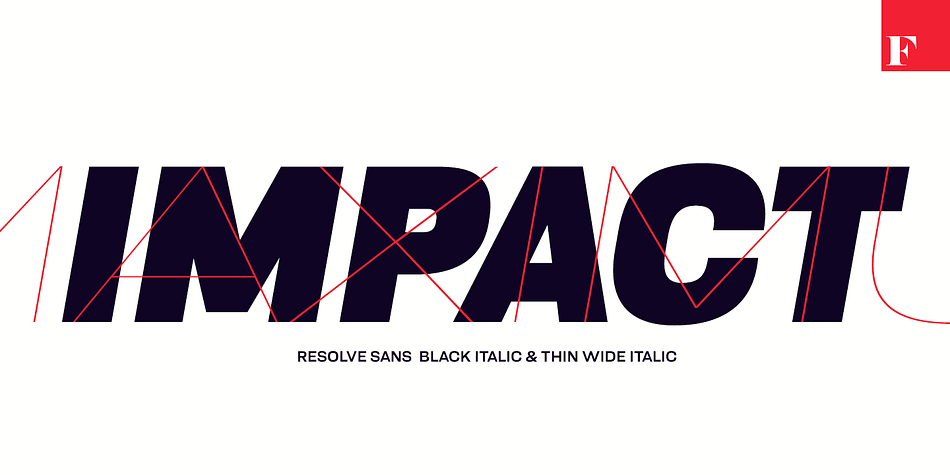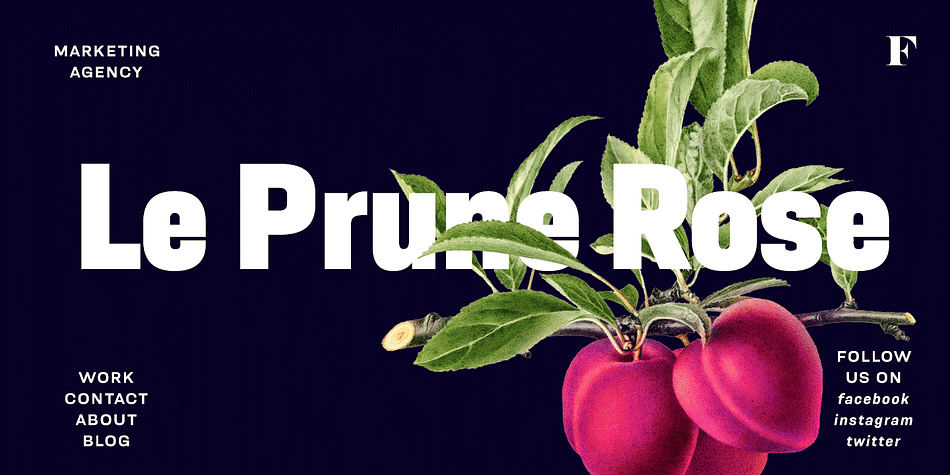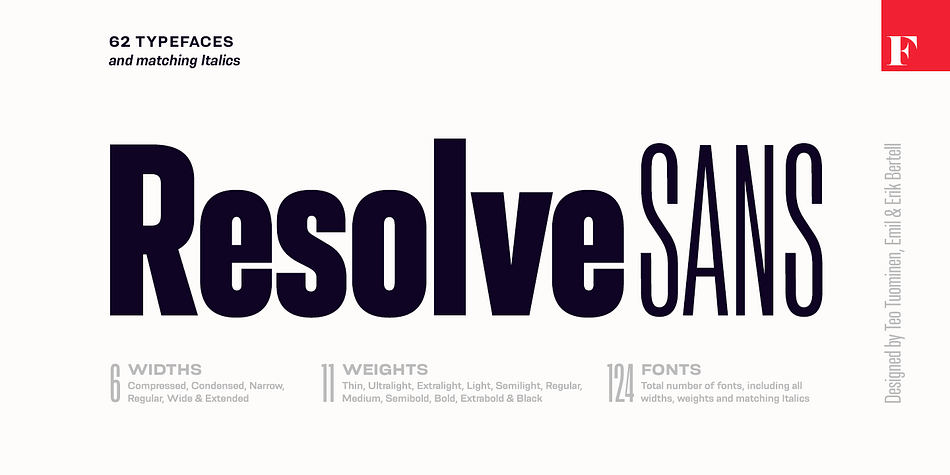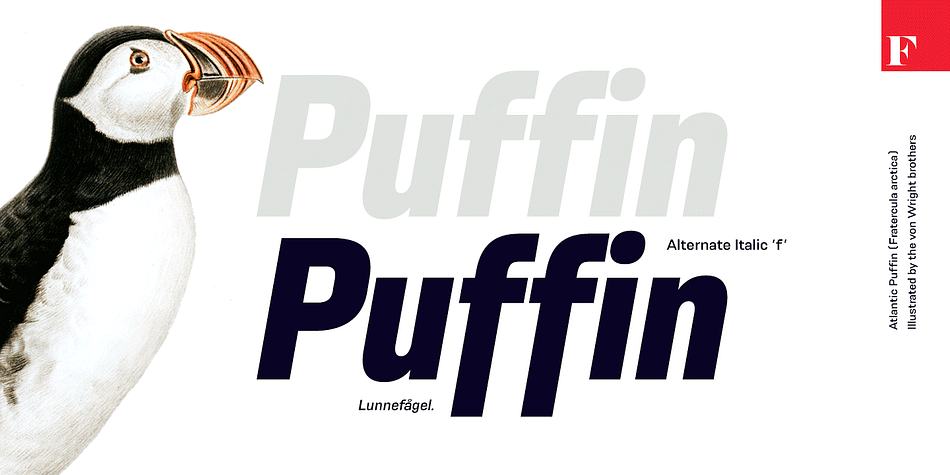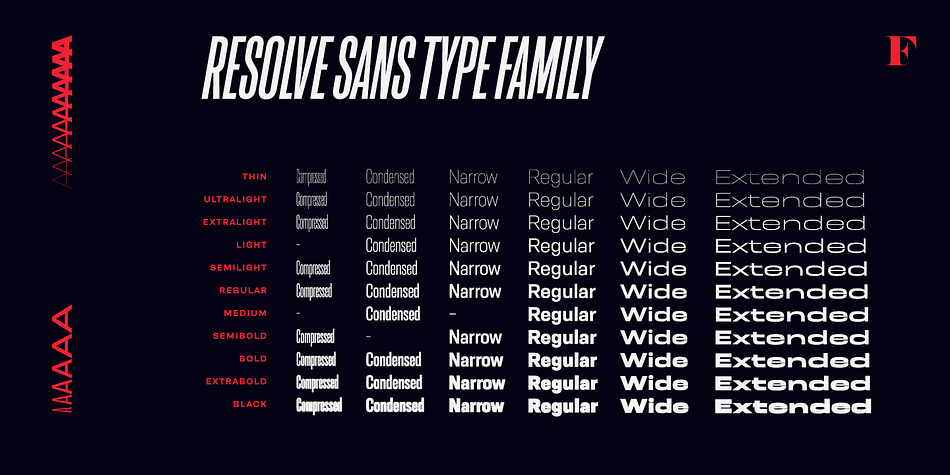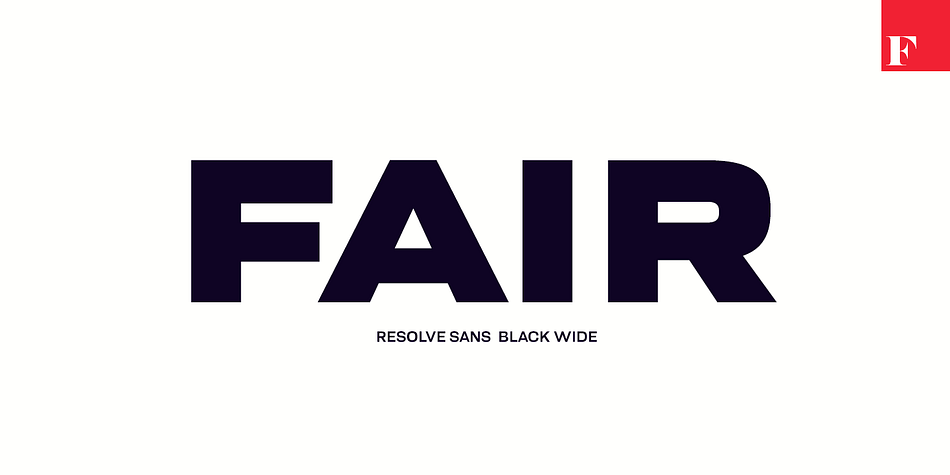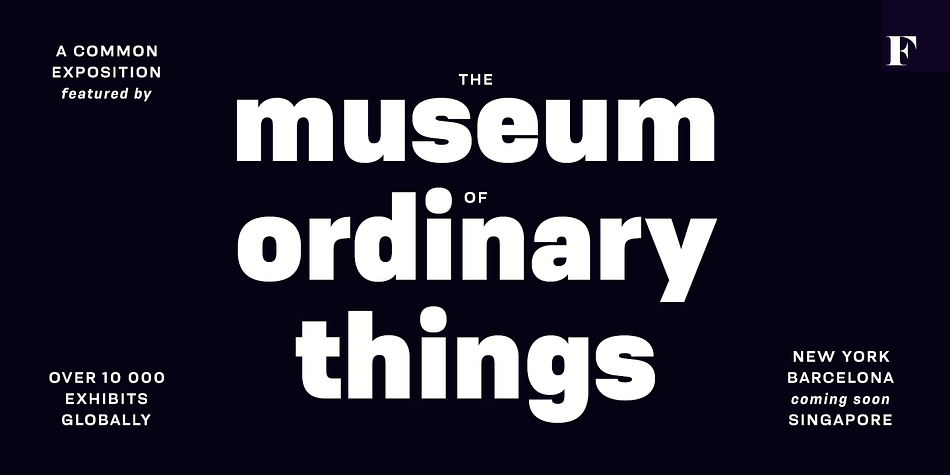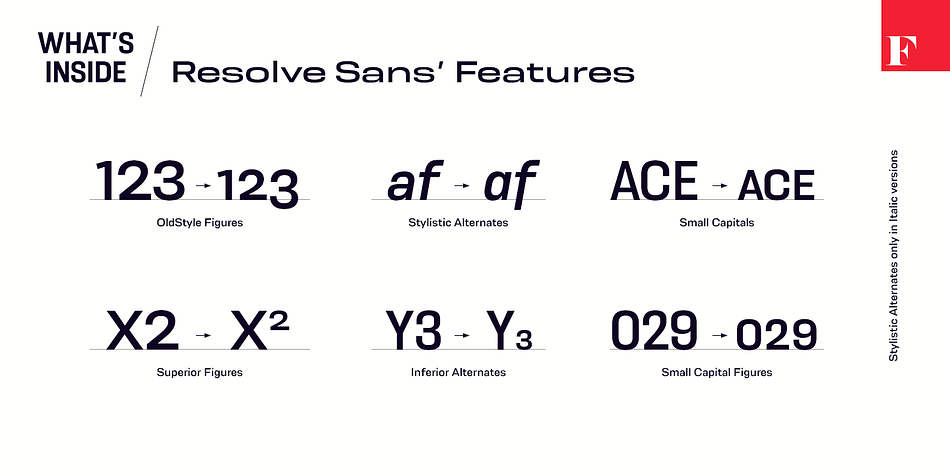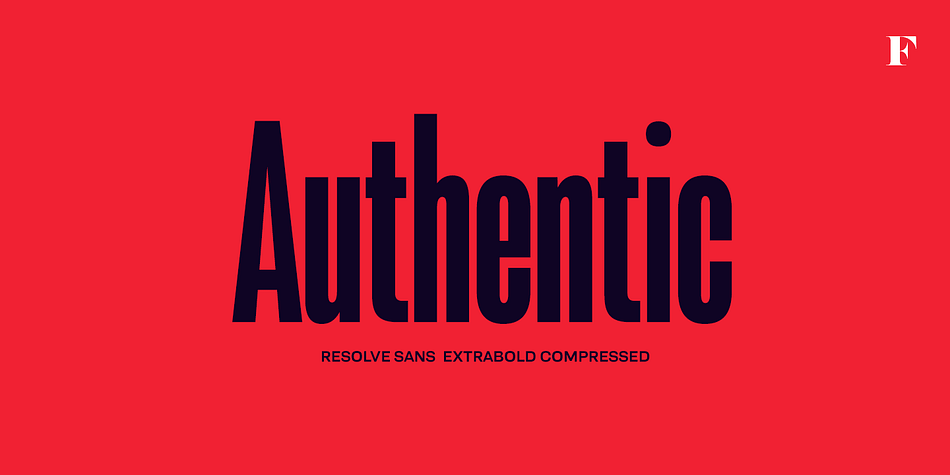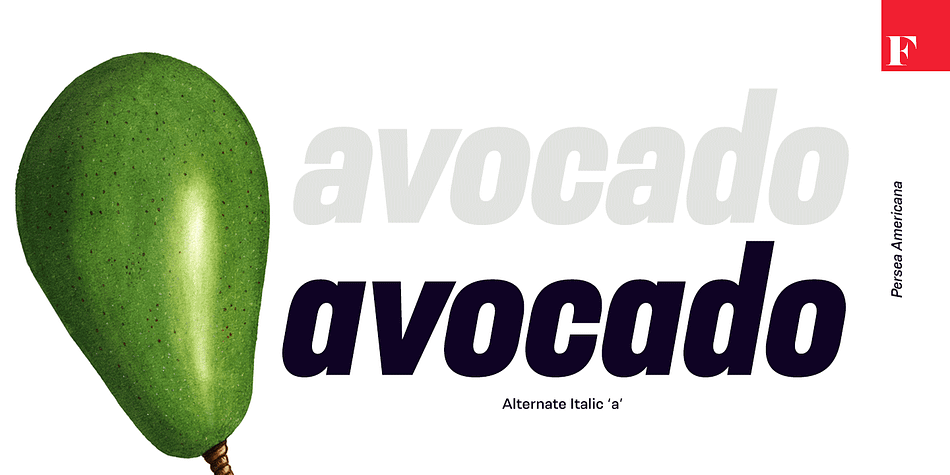
Designed by Teo Tuominen, Erik Bertell and Emil Bertell, Resolve Sans is a sans serif font family. This typeface has one hundred and twenty-four styles and was published by Fenotype.
One font family to cover it all. Resolve Sans is an extensive super family of 124 fonts: from compressed to extended, thin to black. Resolve Sans perfectly balances a universally neutral appeal with a distinct level of sophistication. Effortless to adapt to any contexts of use, Resolve Sans is both a workhorse and a display font with impact and flair. As expected, all Resolve Sans fonts come with clever Open Type features such as built-in small capitals and multiple numeral styles.
| Designers | Teo Tuominen, Erik Jarl Bertell, Emil Karl Bertell |